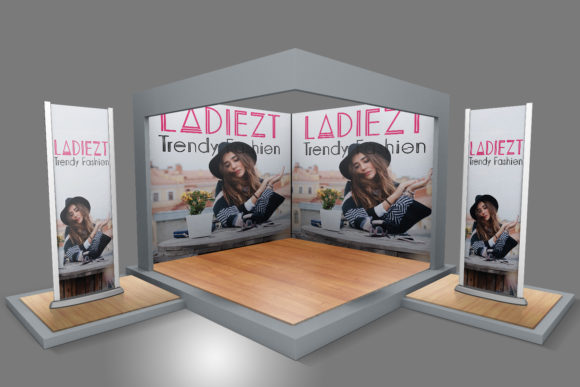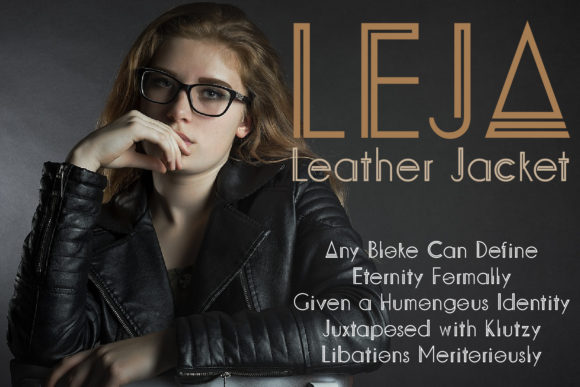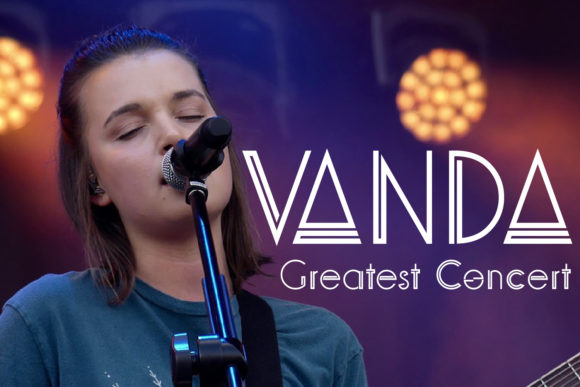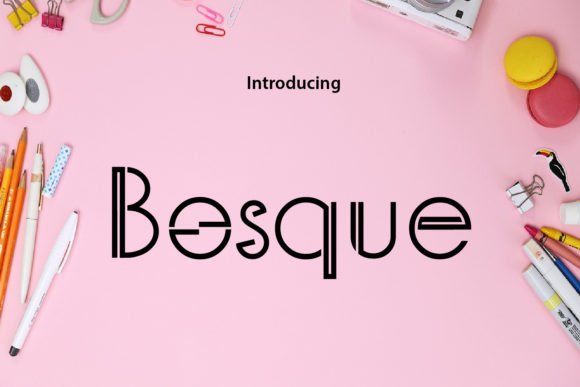
Introduction to Bosque Font
Bosque is a minimalist and futuristic display font.
Add it to your most creative ideas and notice how it makes them come alive .
Key Features of Bosque Font